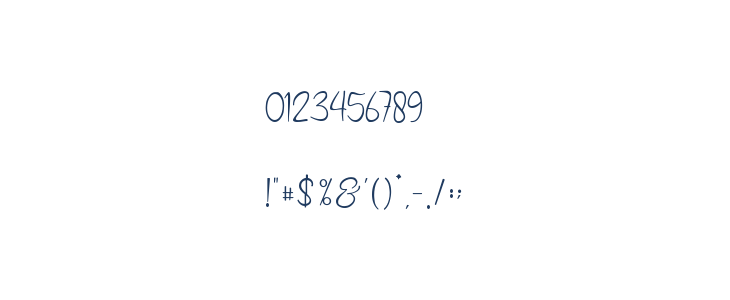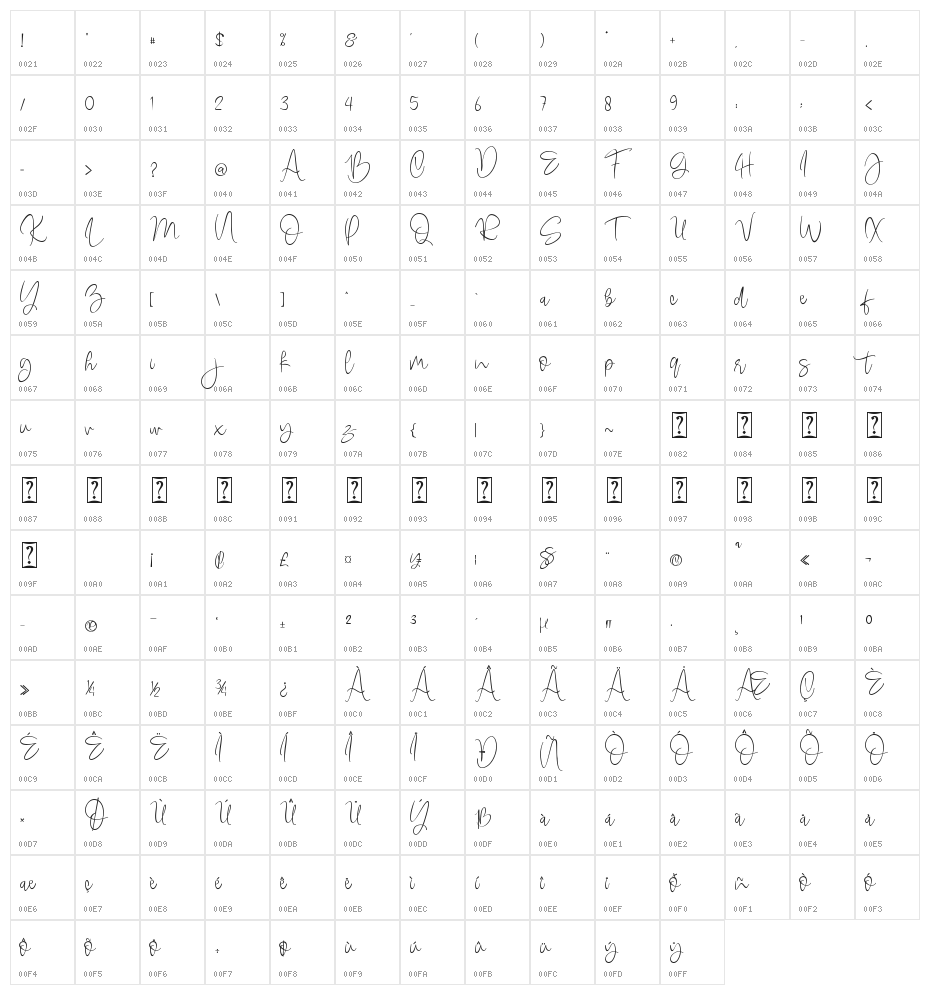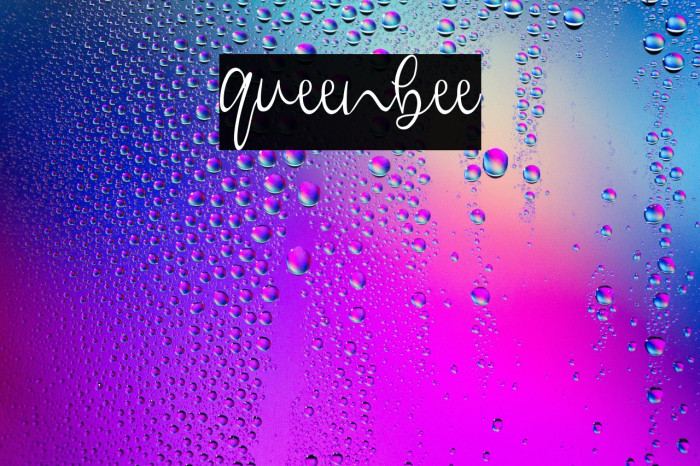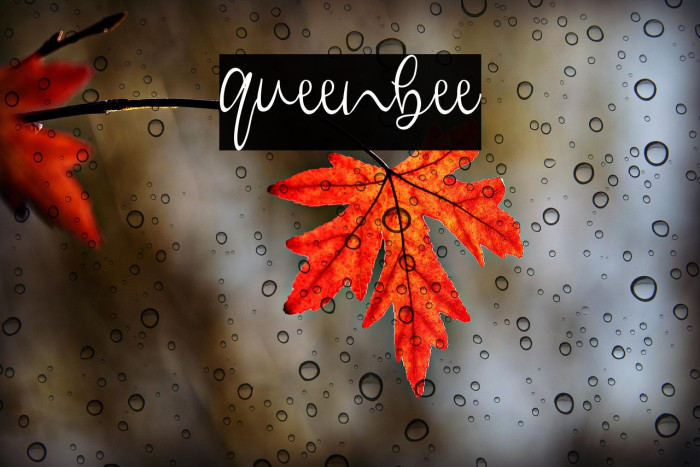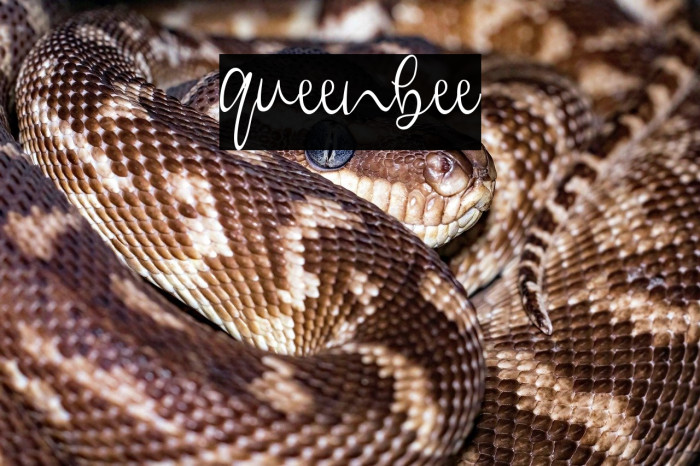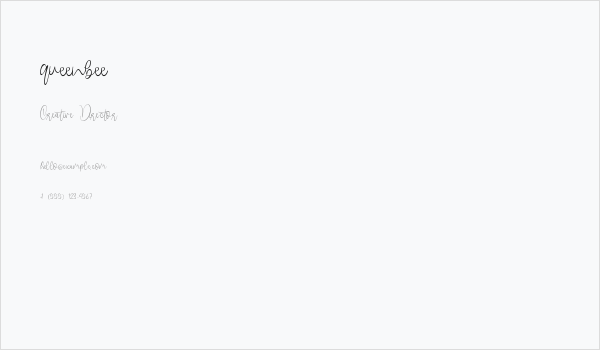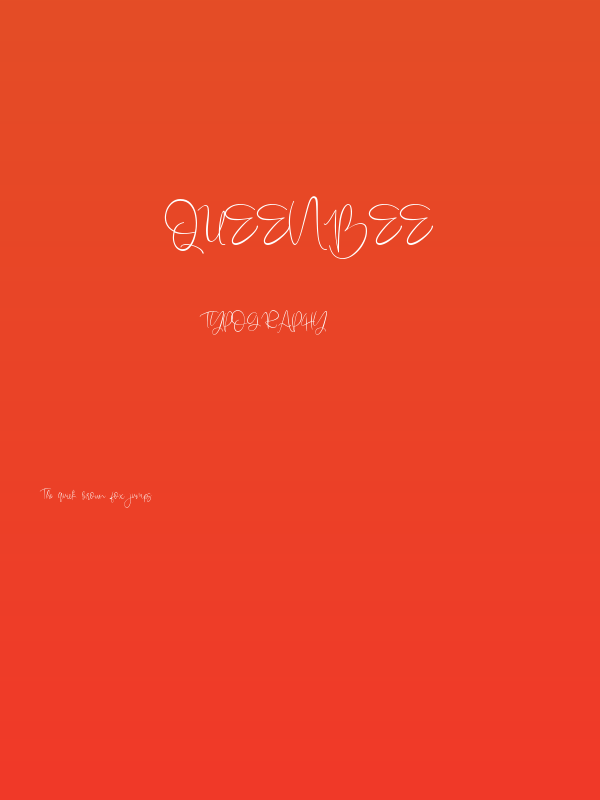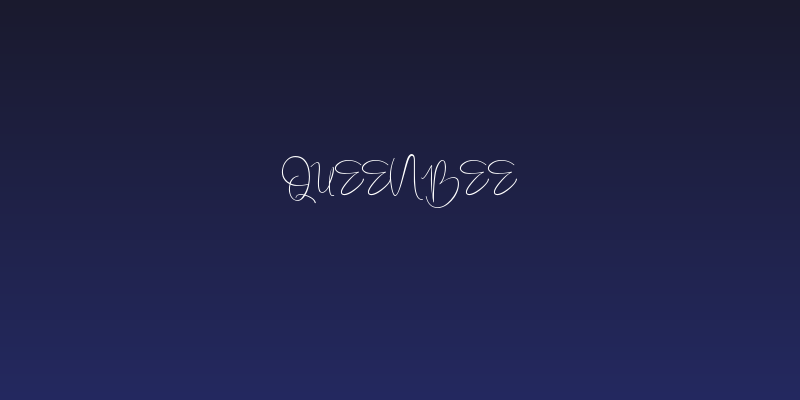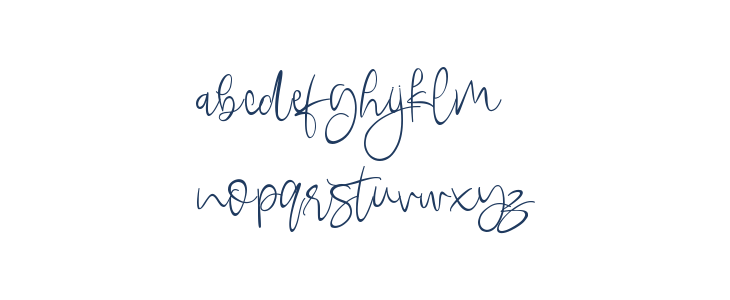
queenbee Font
queenbee Description
This font exudes a playful and elegant charm, characterized by its flowing, cursive script style. The letters are interconnected with smooth, sweeping strokes that give it a handwritten feel. The uppercase letters are bold and expressive, while the lowercase letters maintain a consistent fluidity, enhancing the overall aesthetic. The numerals and special characters are crafted with the same attention to detail, ensuring a cohesive look across all elements. This font is perfect for adding a personal touch to any project, making it ideal for invitations, branding, and creative designs.
| Use Case | Logos, Invitations, Creative designs |
| Proposed Projects | Ideal for wedding invitations, personal branding, greeting cards, and creative design projects. |